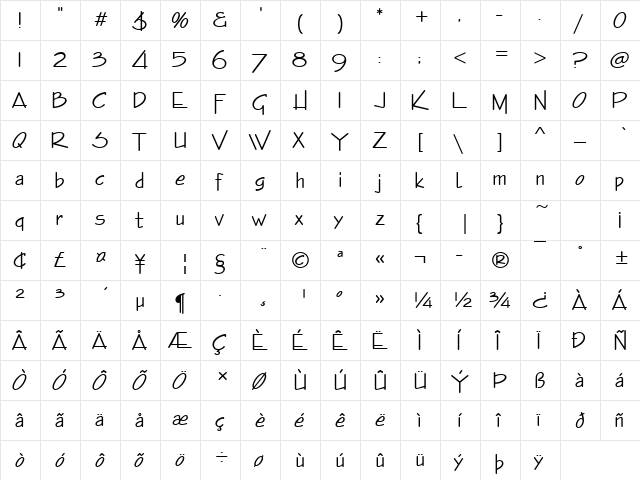
EnviroD Regular
Design Context for EnviroD Typeface
EnviroD is a composed and adaptable typeface that performs quietly and consistently across a wide range of design contexts.